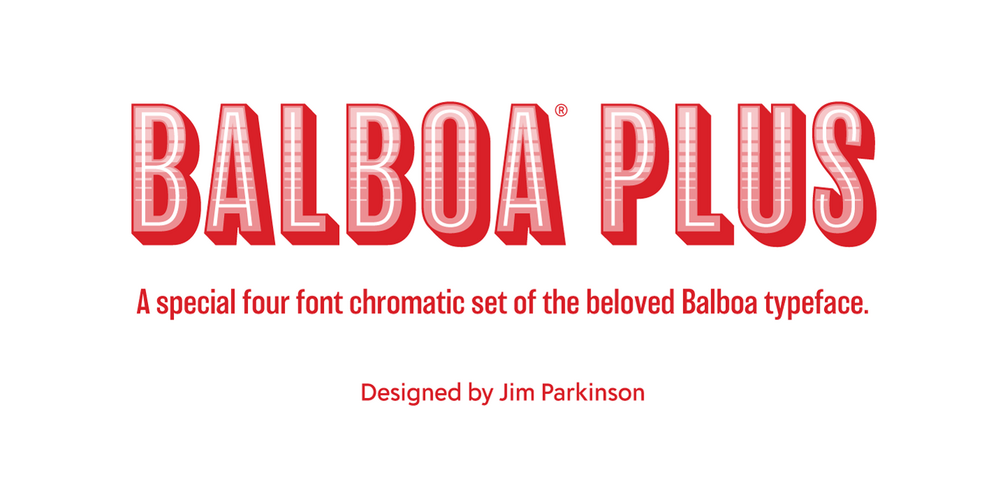
This special four font set of Balboa style variants is intended for layering in different combinations to quickly create a multitude of fun chromatic effects.
The attention-grabbing Balboa Plus family is perfect for display work. Picture it used on book and magazine covers, movie posters, album covers, product packaging, and as a starting point for creating logos.